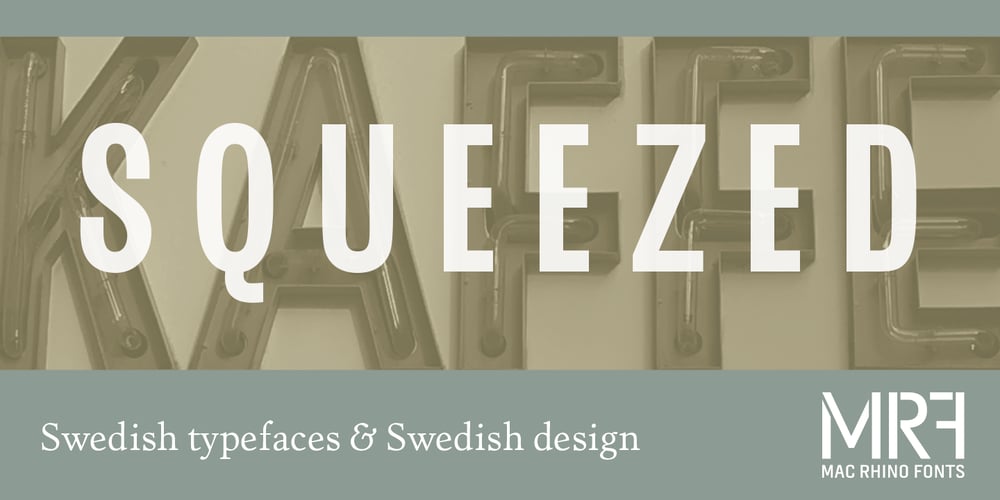
Squeezed Font Family was designed by Stefan Hattenbach and published by MAC Rhino Fonts. Squeezed contains 1 styles and family package options. Squeezed is the result of exploring mid 20th Century sans serif typefaces. As the name suggest, the typeface is indeed condensed which is also a solid part of its personal and friendly charactar. It was first designed to fit for custom book cover projects, but now released for the public. Squeezed is best suited for display solutions, but could sometimes work in minor sizes.